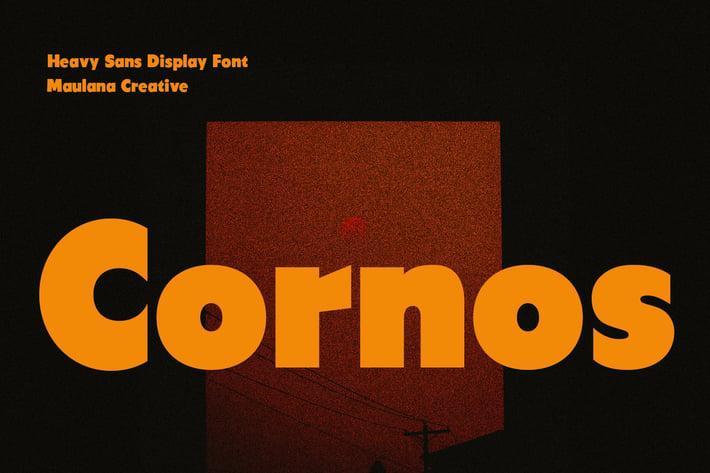
Cornos Sans Font
Cornos is a modern clean sans serif Display font. Bold stroke, fun character with a bit of ligatures and alternates. To give you an extra creative work. Cornos font support multilingual more than 100+ language. This font is good for logo design, Social media, Movie Titles, Books Titles, a short text even a long text letter and good for your secondary text font with script or serif. Make a stunning work with Cornos font.